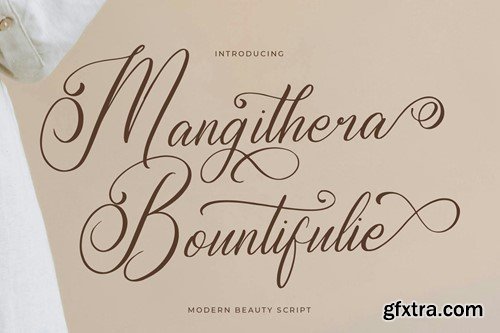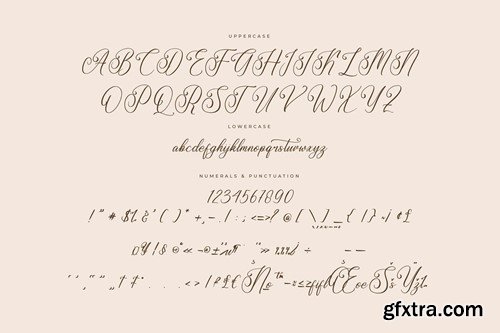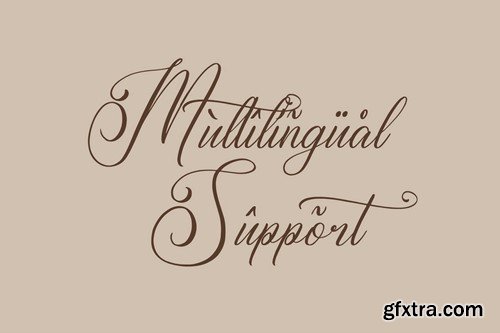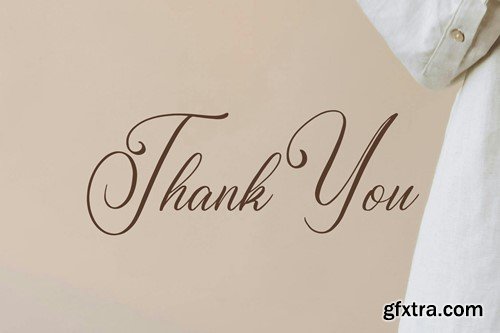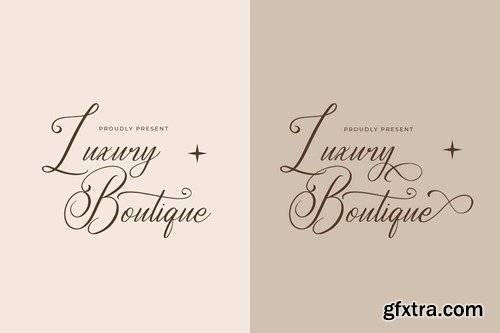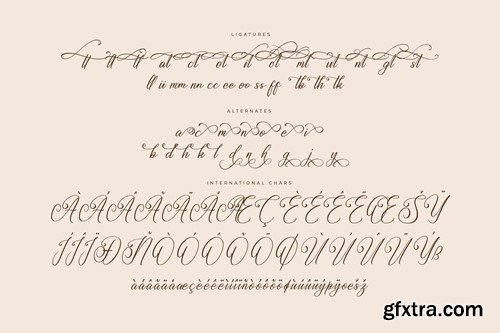
Mangithera Bountifulie Modern Script Font YVQ6HUL
Mangithera Bountifulie Modern Script Font
Hi ladies & gentlemen, this is one of our fonts suitable to complement your digital and printed creative products. This font is perfect for posters, social media posts, branding, personal projects, etc.